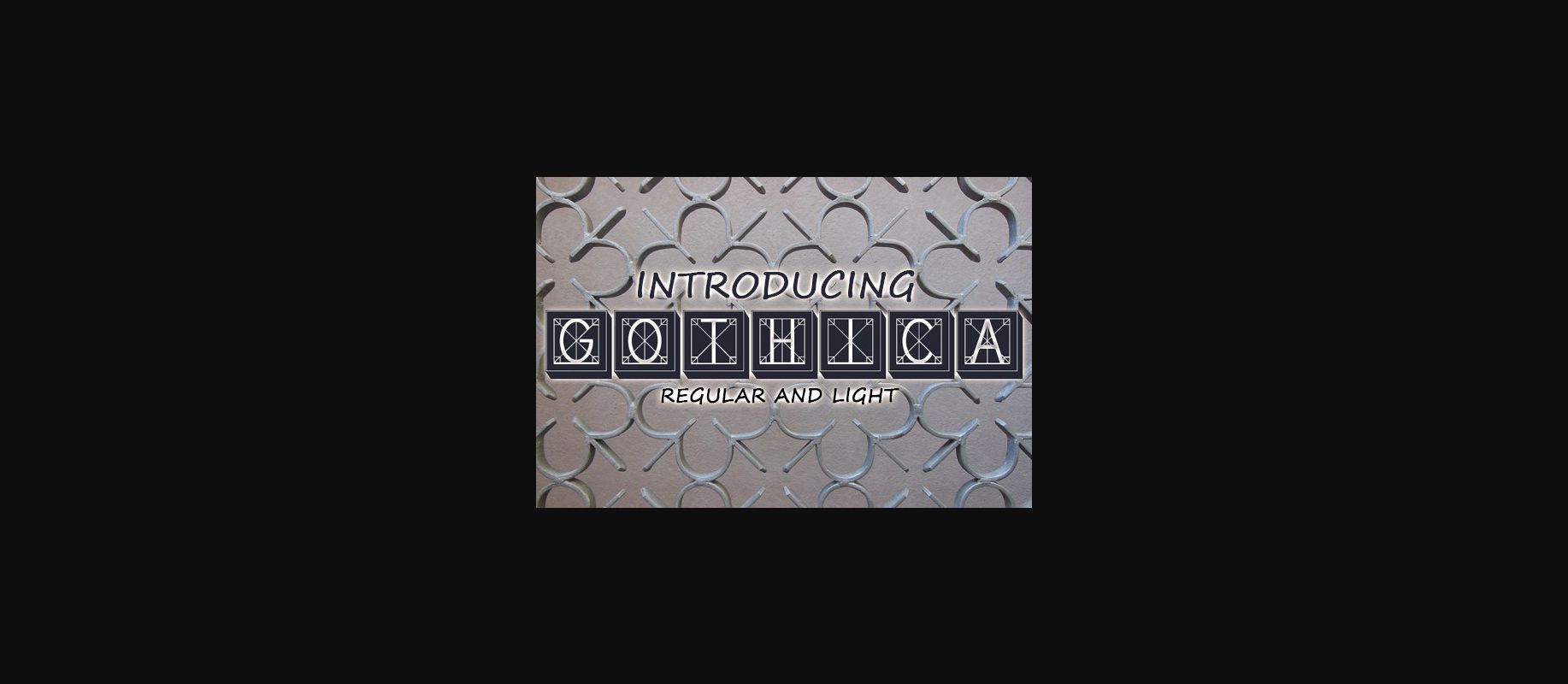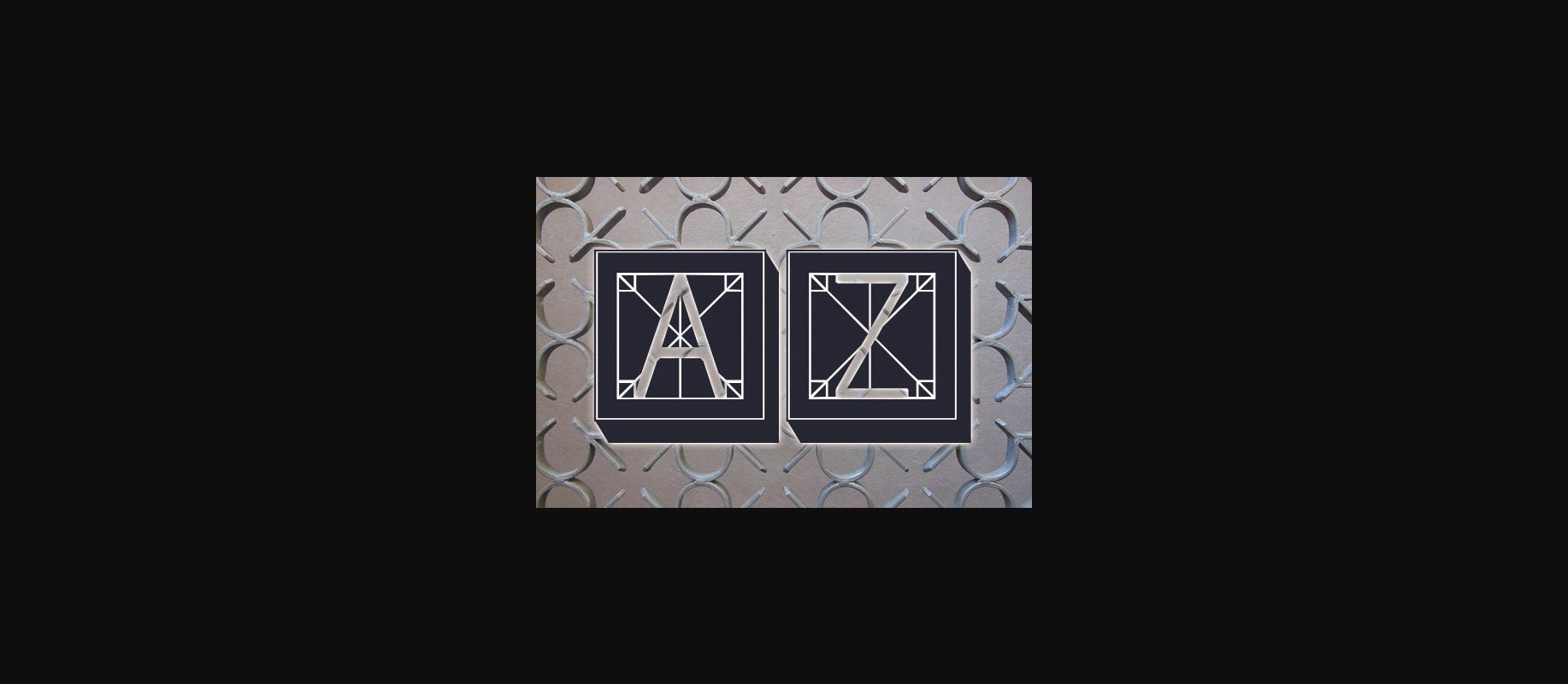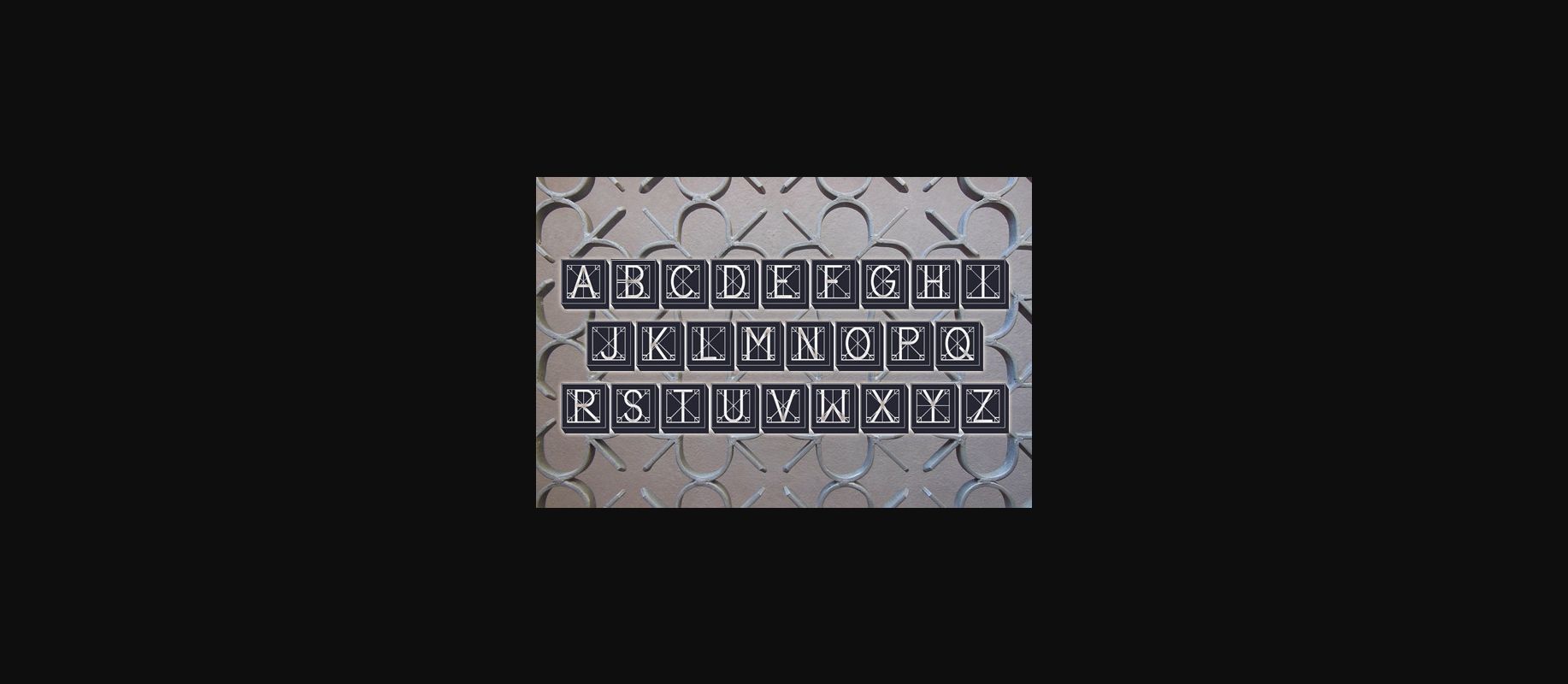
About Gothica Font
Gothica is an extravagant initials font that will look stunning on any of your designs.
Use this font on posters, flyers, and t-shirts.